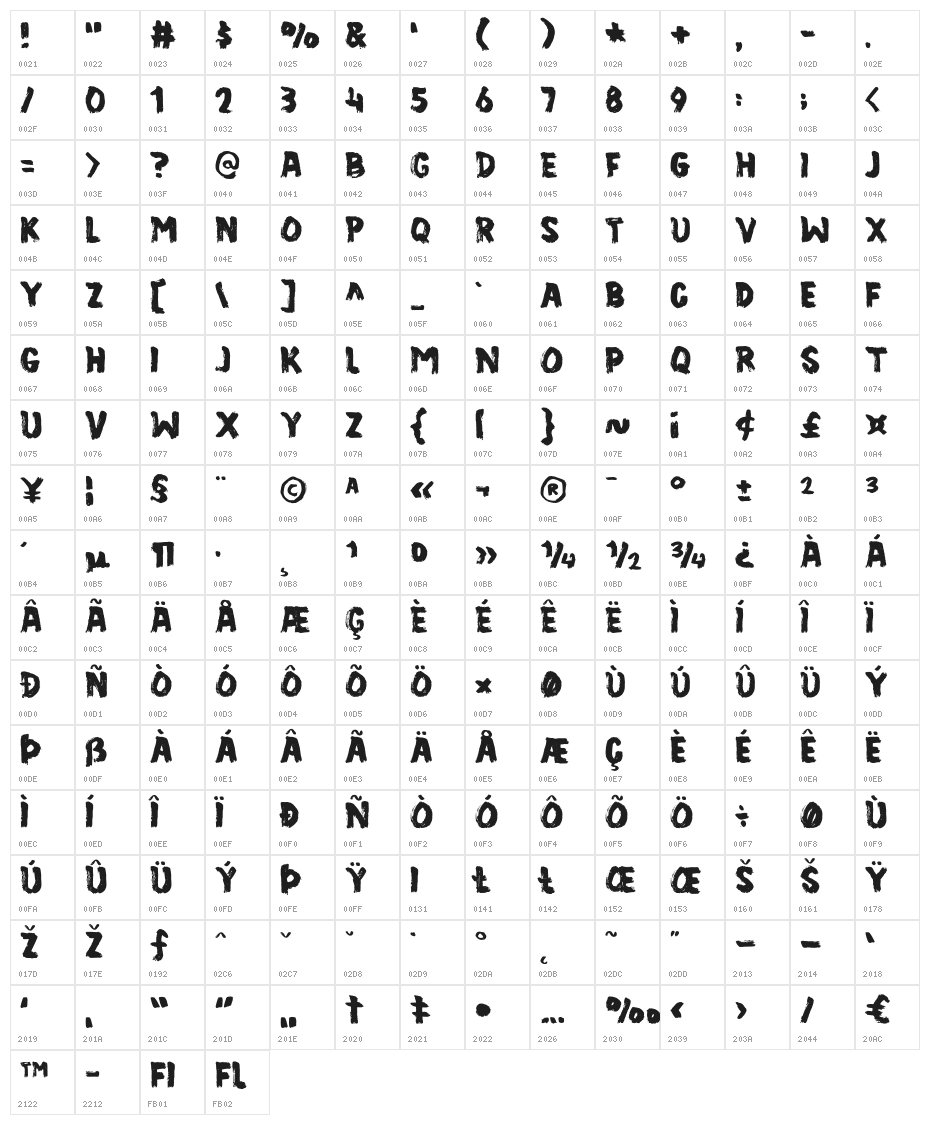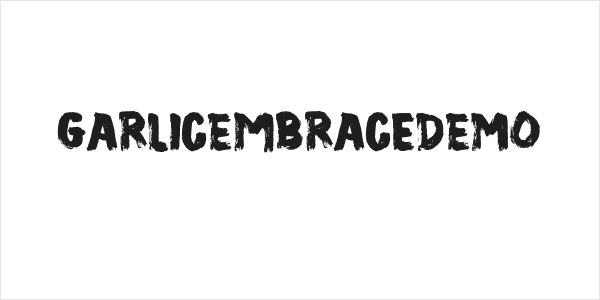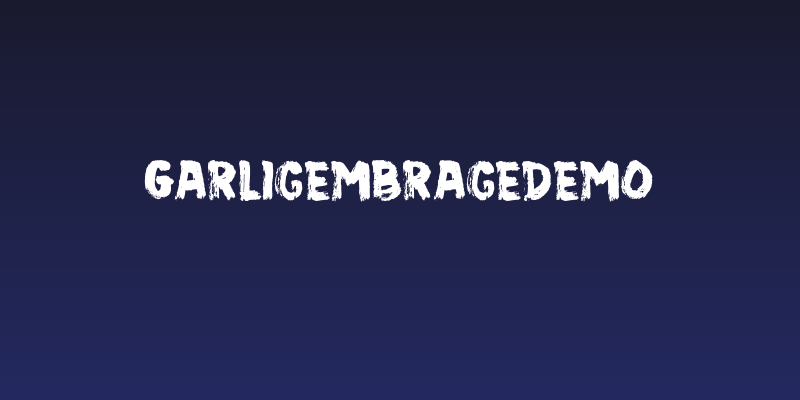
GarlicEmbraceDEMO Font
GarlicEmbraceDEMO Description
This font features a bold, expressive style with a hand-painted appearance. The characters are irregular and dynamic, giving a sense of movement and energy. The brush-like strokes create a textured, artistic look, making it ideal for creative and eye-catching designs. The uppercase and lowercase letters maintain a consistent style, with numbers and special characters following the same aesthetic. This font is perfect for projects that require a strong visual impact and a touch of creativity.
| Overall Style | Artistic, Expressive |
| Proposed Projects | Ideal for posters, album covers, branding, and artistic projects that require a bold statement. |